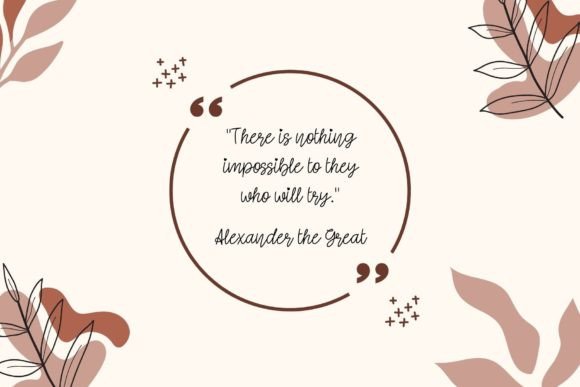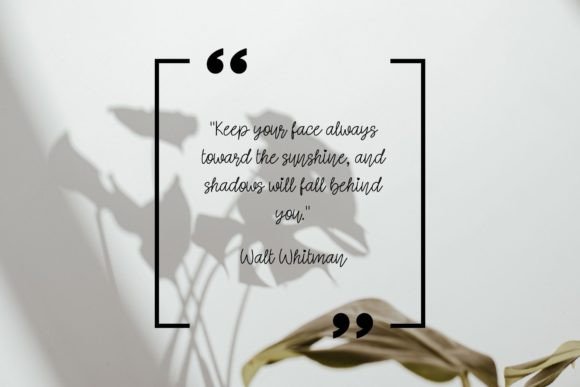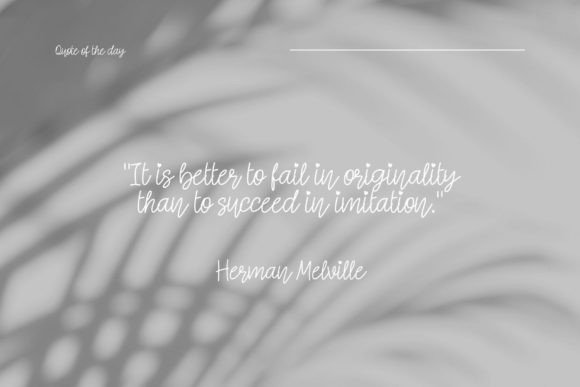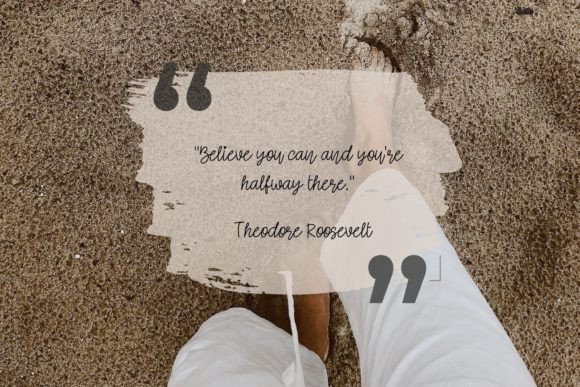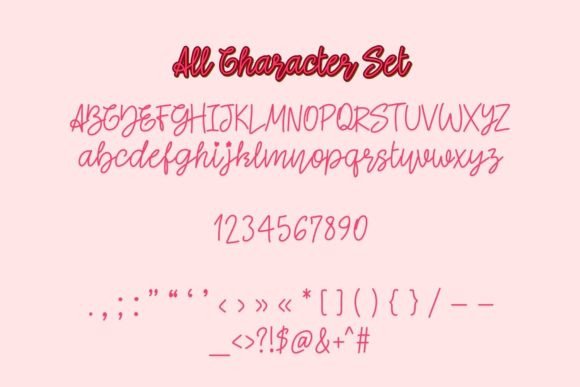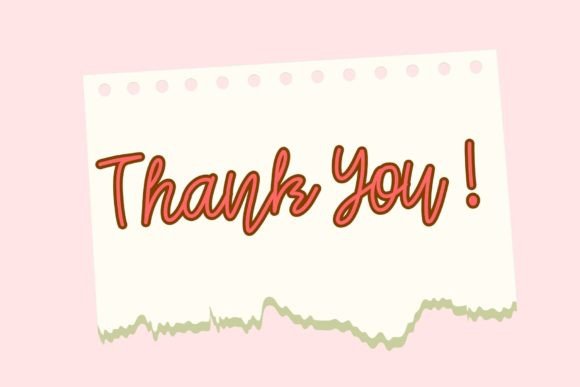
Discover the Charm of Bianca Font: A Cute Handwritten Delight
Are you on the hunt for a font that embodies playfulness and authenticity? Look no further than Bianca Font, a delightful handwritten font that’s perfect for adding a personal touch to your designs. Whether you’re working on blog posts, logos, branding, ads, invitations, greeting cards, planners, photo albums, decorations, or more, Bianca Font is the ideal choice.
The Perfect Blend of Playfulness and Authenticity
Bianca Font is a carefully crafted handwritten font that exudes a sense of playfulness and authenticity. Its unique charm makes it an excellent addition to any design project, allowing you to add a personal touch that resonates with your audience. The font’s friendly and approachable feel makes it perfect for designs that require a human touch, such as:
- Blog posts: Add a personal touch to your articles and make them more engaging with Bianca Font.
- Logos and branding: Create a memorable brand identity with a font that’s both cute and authentic.
- Ads: Stand out from the crowd with eye-catching ads that feature Bianca Font’s playful charm.
- Invitations and greeting cards: Make your invitations and cards more special with a font that’s both elegant and whimsical.
Endless Design Possibilities with Bianca Font
Bianca Font is an incredibly versatile font that can be used in a wide range of design projects. Its flexibility makes it an excellent addition to your font collection, allowing you to experiment with different designs and styles. Some popular design ideas that Bianca Font is perfect for include:
- Planners and journals: Add a personal touch to your planners and journals with Bianca Font’s playful and authentic feel.
- Photo albums: Create beautiful and memorable photo albums with a font that’s both elegant and whimsical.
- Decorations: Use Bianca Font to add a personal touch to your decorations, such as wall art, signs, and more.
Why Choose Bianca Font?
So, why should you choose Bianca Font for your design projects? Here are just a few reasons why this font stands out:
- Unique and playful feel: Bianca Font has a one-of-a-kind feel that’s both playful and authentic.
- Highly versatile: This font can be used in a wide range of design projects, from blog posts to logos and branding.
- Easily readable: Bianca Font is clear and easy to read, making it perfect for body text and headlines.
- Perfect for DIY projects: Bianca Font is ideal for crafters and DIY enthusiasts who want to add a personal touch to their projects.
Get Creative with Bianca Font
Ready to add Bianca Font to your design projects? With its playful and authentic feel, this font is sure to inspire your creativity. Here are a few tips to get you started:
- Pair Bianca Font with other fonts to create a unique and eye-catching combination.
- Use Bianca Font to add a personal touch to your digital and print designs.